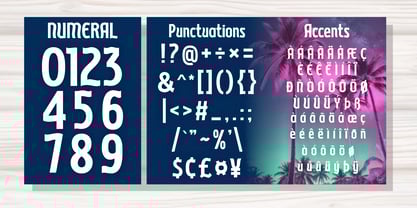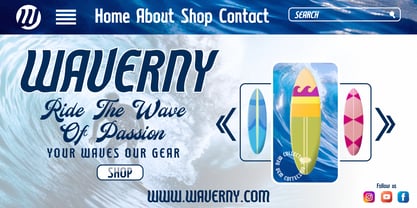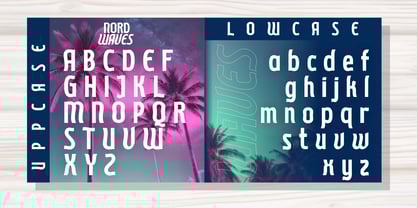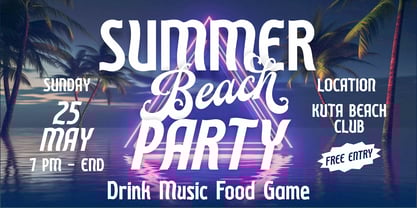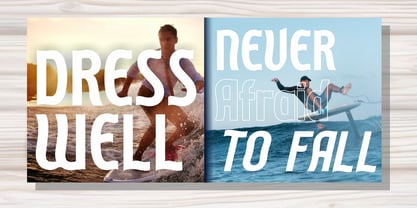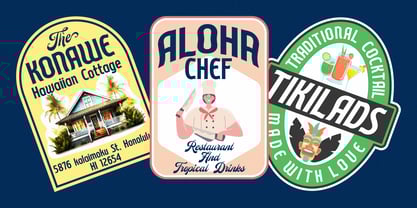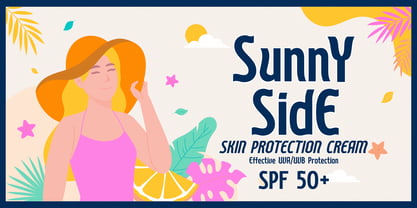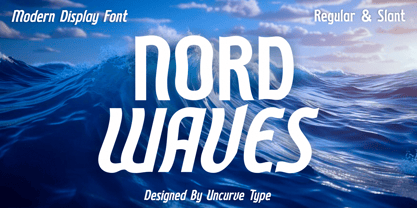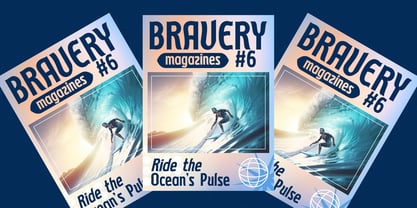
Nordwaves
by Uncurve
Introducing "Nord Waves," a modern display font with a unique wavy aesthetic that’s stylish yet highly readable. With its two versatile styles—Regular and Slant—Nord Waves offers the perfect combination for crafting eye-catching and dynamic designs. Its sleek, sporty vibe makes it an excellent choice for projects that demand a bold and modern touch.
Nord Waves is ideal for a wide range of design applications, including authentic logos, sporty layouts, flyer designs, posters, branding, magazines, book covers, race posters, apparel designs, and titles. Its modern aesthetic also works seamlessly for brochures, labels, product packaging, websites, social media posts, sports events, headlines, headers, and more.
Whether you're designing modern t-shirts, automotive branding, or formal materials, Nord Waves ensures your designs stand out with style and sophistication.
Based in the bustling city of Bandung, West Java, Indonesia, Uncurve represents a dedication to crafting typefaces that are both artistic and functional. Each design is a testament to Ferry’s vision of blending creativity and precision, offering fonts that cater to a wide variety of design needs. Since its inception, Uncurve has grown into a recognized name in the world of type design, producing unique and high-quality fonts that resonate with designers and creatives worldwide. It’s a story of passion, learning, and the drive to create something meaningful in the world of typography.